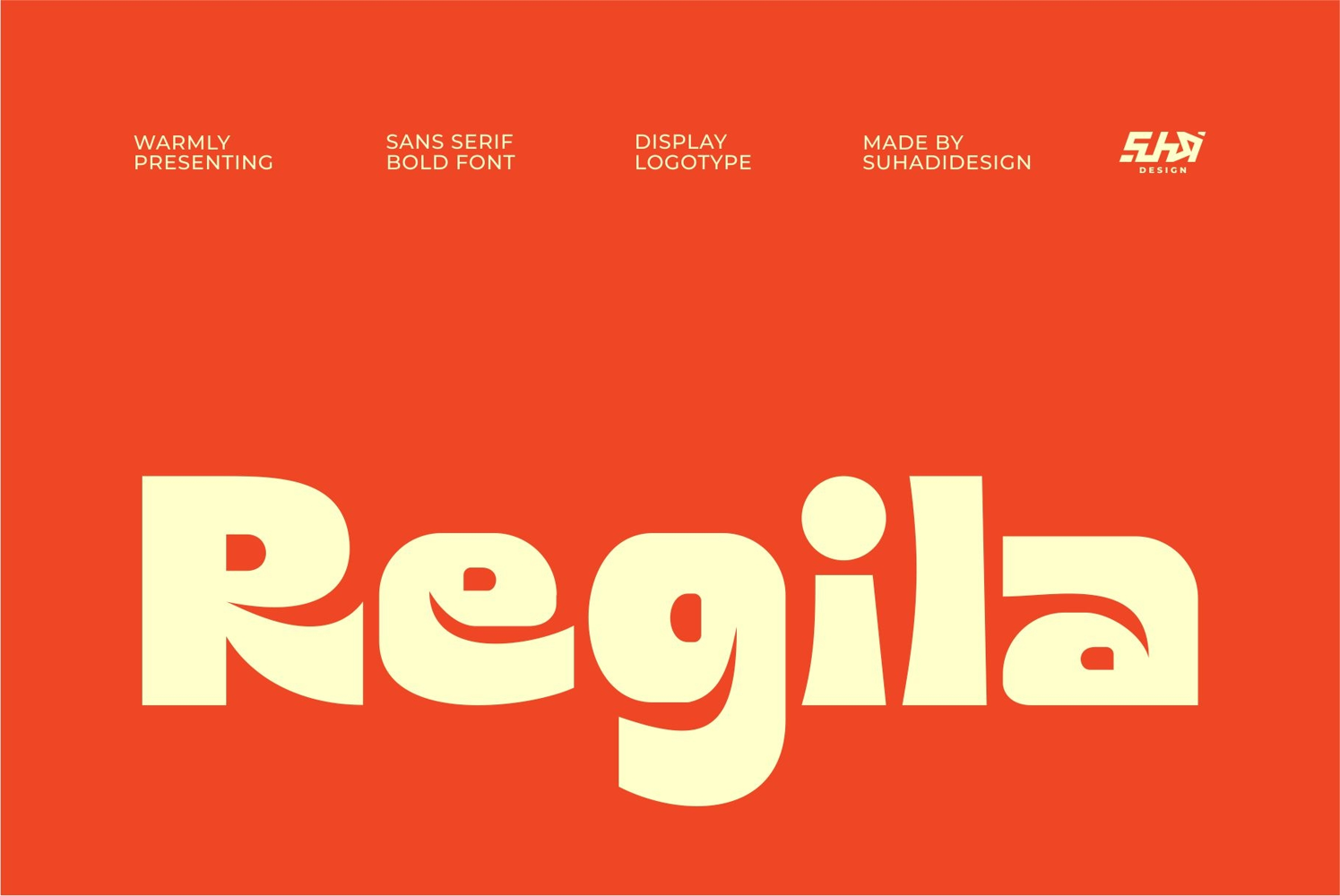
Regila - Bold Display Logo Font
In response to market demand, I created a modern, cool, elegant, and handsome sans serif font. So, I decided to create this sans serif font. Regila is a sans serif display font, expected to be a market favorite. We maintain this font to be elegant, classy, ​​modern, stylish, contemporary, and easy to use. The Regila font is a great choice for magazines, book covers, shopping bags, packaging, logos, labels, fashion, posters, banners, bags, branding, brand names, quotes, and other projects. The Regila font is here to take your designs to the next level.
The Regila font style will make you love design and take advantage of the cool design results of this font. Stay tuned for our font updates :)